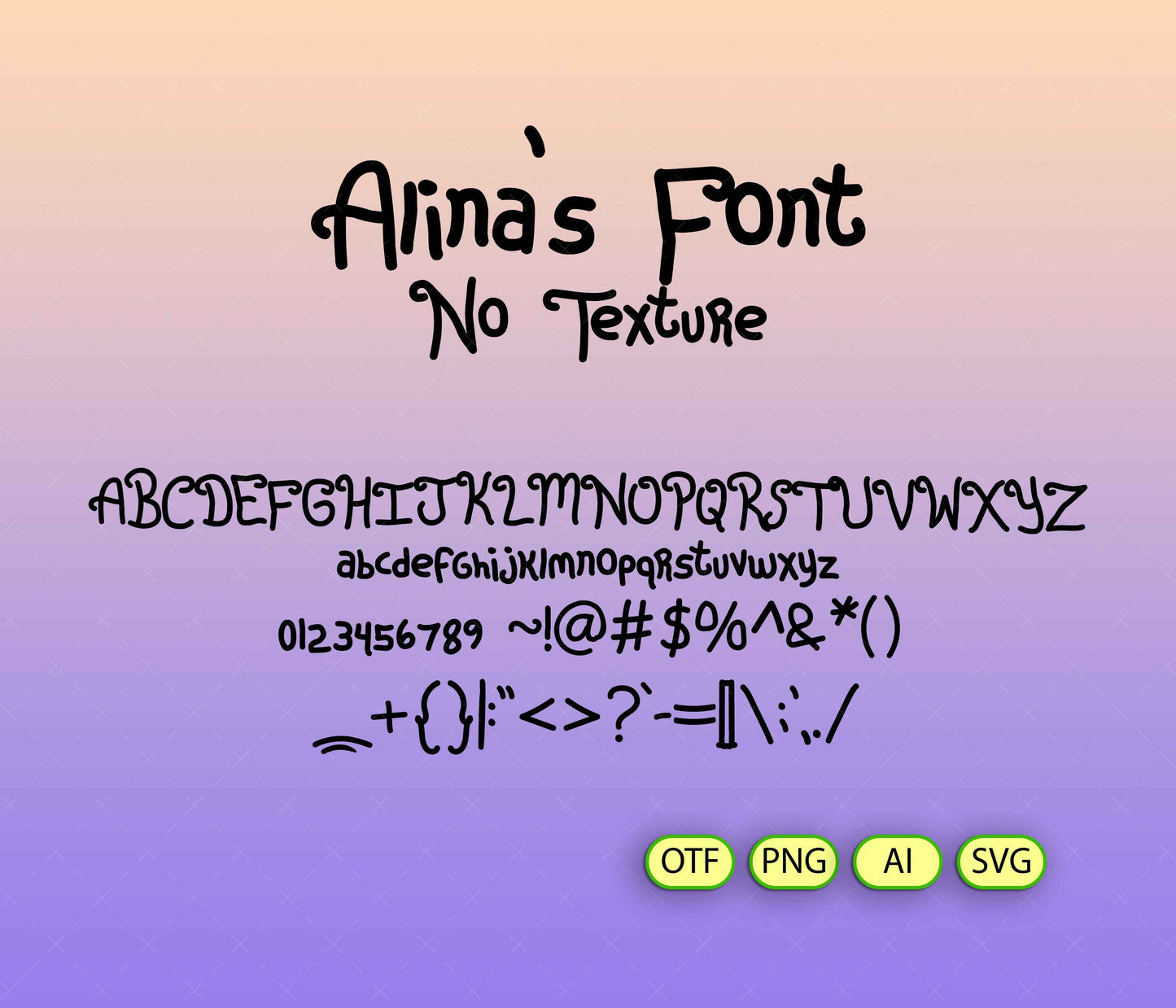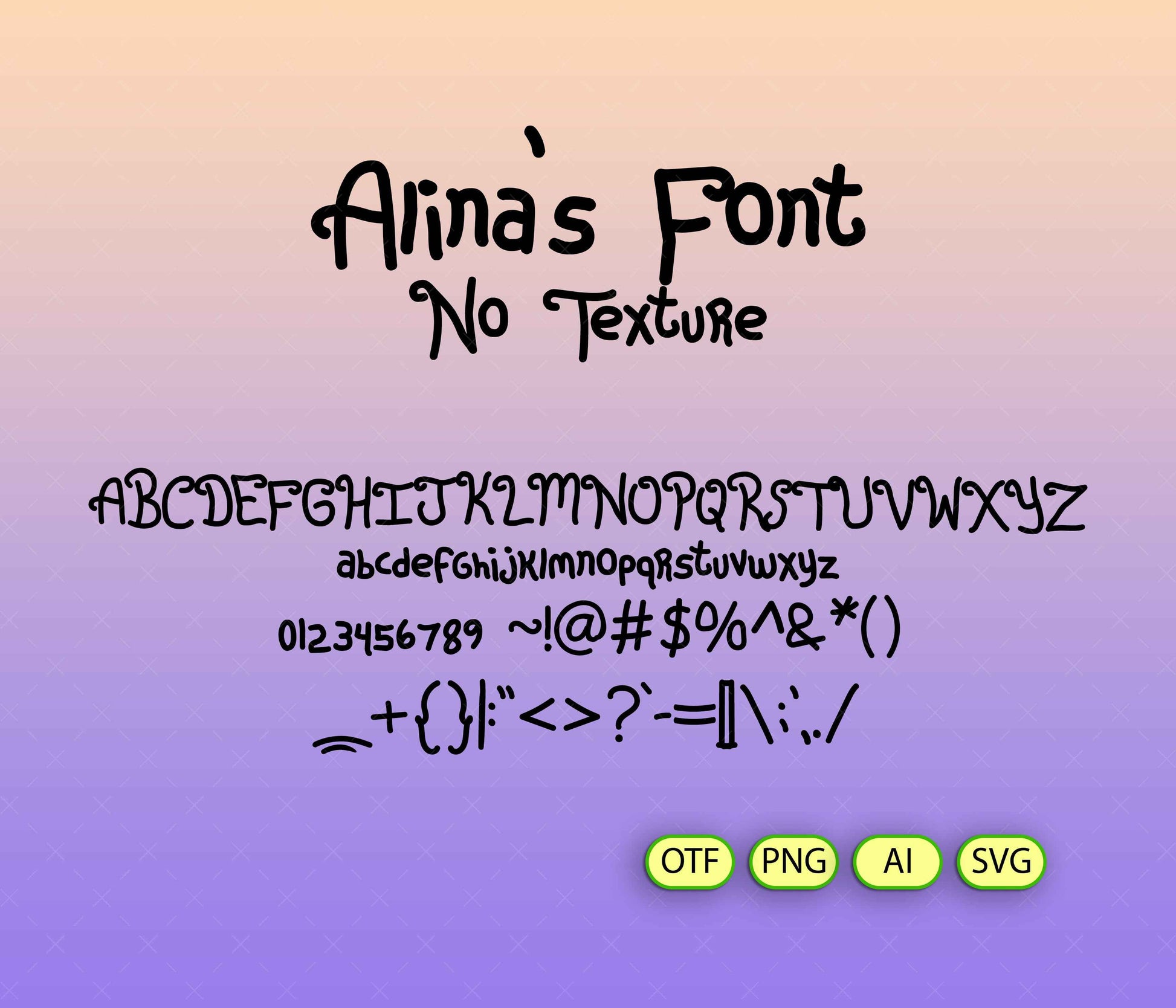
Playful Toddler Adventure Font
Step into the whimsical world of curious babies and their imaginative escapades with our specially designed font. This typeface captures the essence of a beloved animated series that has charmed audiences for generations. Perfect for children's content creators, event planners, and nostalgic millennials, this font brings the playful, adventurous spirit of intrepid infants to your projects.
What is the Playful Toddler Adventure font?
Our font is a visual celebration of the quirky, child-like aesthetic that defines this iconic cartoon series. It features rounded, slightly wobbly letterforms that seem to toddle and tumble, as if drawn by the chubby hands of the show's pint-sized heroes. Each character exudes a perfect blend of innocence and mischief, ideal for projects that aim to capture the unique charm of babies exploring their world.
What You Can Do With Playful Toddler Adventure Textured Font
This versatile font is perfect for a wide range of creative applications:
1. Children's Party Invitations: Create adorable invites for birthday parties, playdates, and family events.
2. Nostalgic Merchandise Design: Design T-shirts, mugs, and accessories that capture the essence of 90s cartoon nostalgia.
3. Digital Media: Enhance websites, blogs, and social media with playful headers and graphics.
4. Educational Materials: Add a fun touch to children's books, worksheets, and learning resources.
5. Nursery Decor: Perfect for wall art, growth charts, and personalized baby gifts.
6. Animation and Comics: Ideal for creating title cards or speech bubbles in child-focused content.
7. Family-Friendly Event Promotions: Use in marketing materials for kid-centric events or family reunions.
Feature Highlights and Bonuses:
• Comprehensive Character Set: Offers a wide range of characters, including playful alternatives and ligatures.